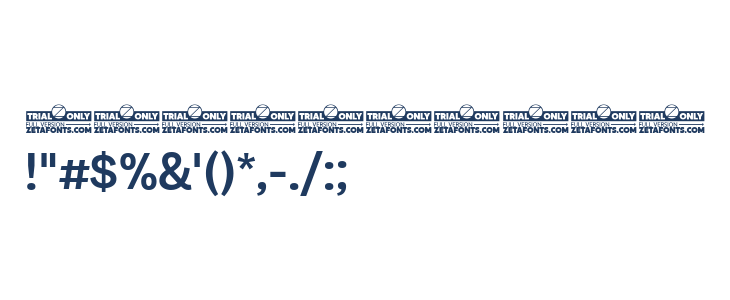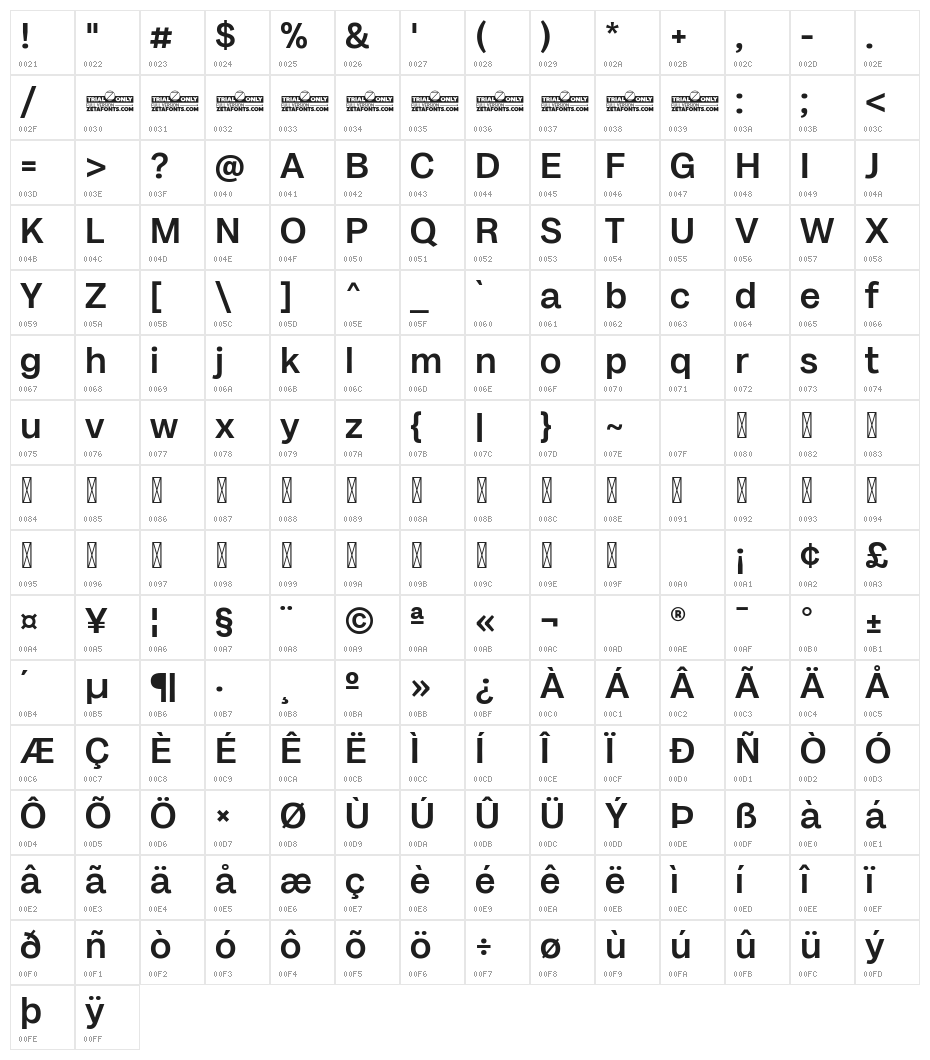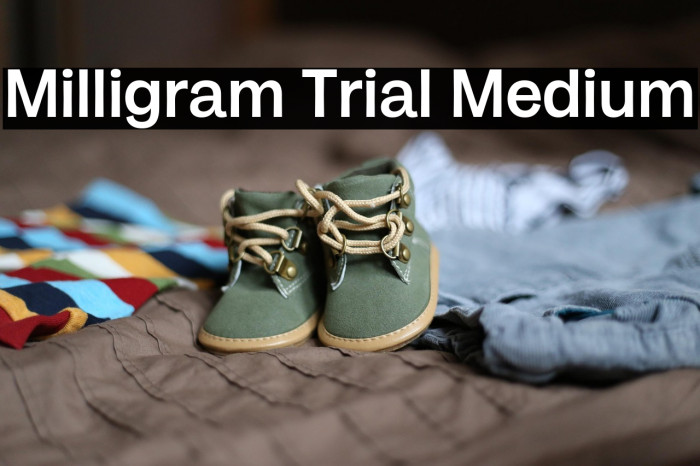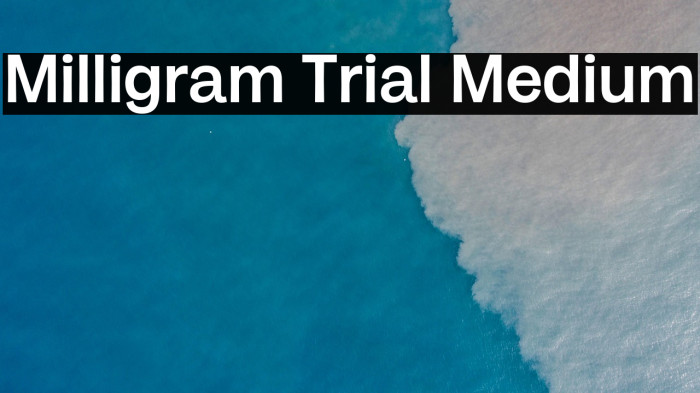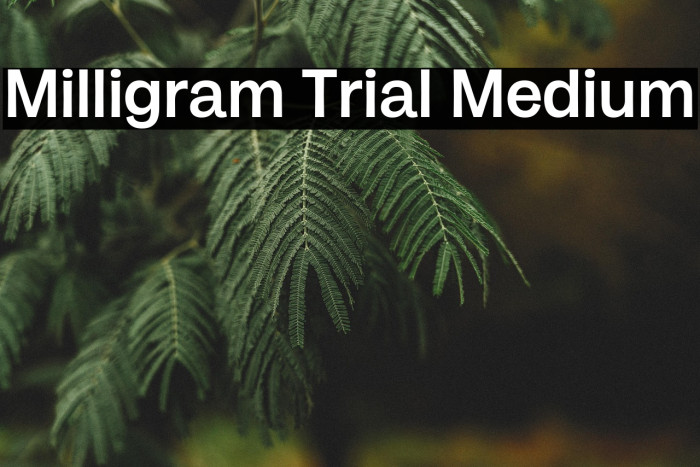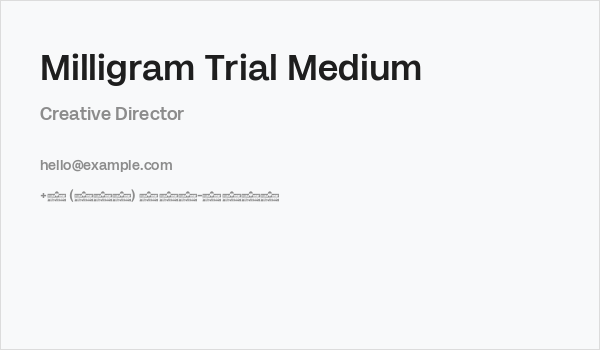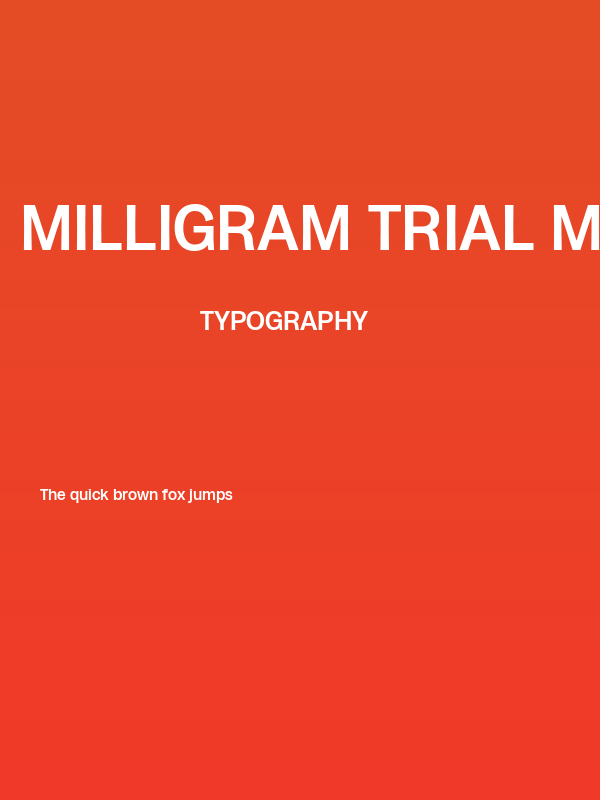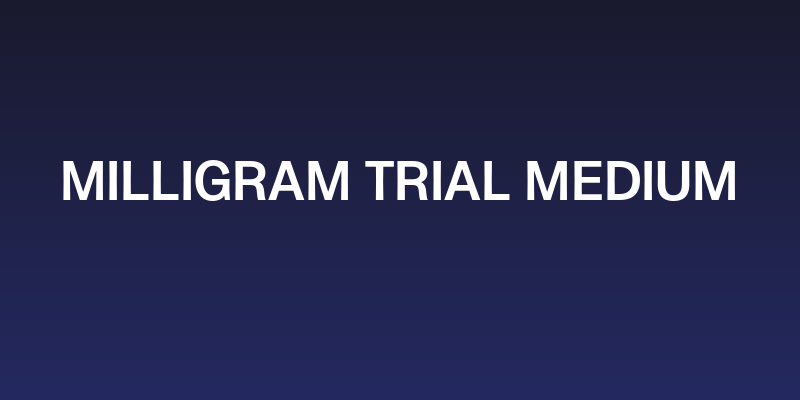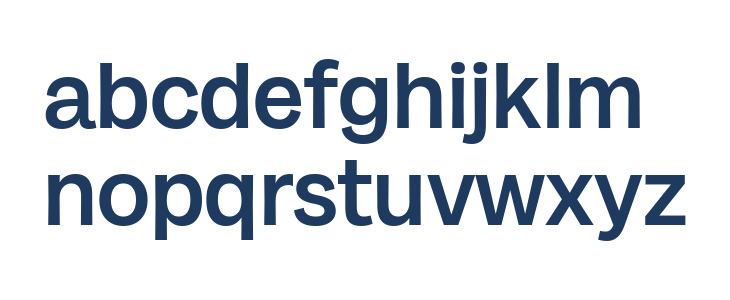
Milligram Trial Medium Font
Milligram Trial Medium Description
This font features a clean and modern sans-serif style with a medium weight, offering a balanced and straightforward appearance. The characters are evenly spaced, providing a harmonious and readable text flow. The uppercase and lowercase letters maintain a consistent height and width, contributing to its uniformity. The numerals and special characters are designed to match the overall aesthetic, ensuring versatility across various applications. Its simplicity and clarity make it suitable for both digital and print media.